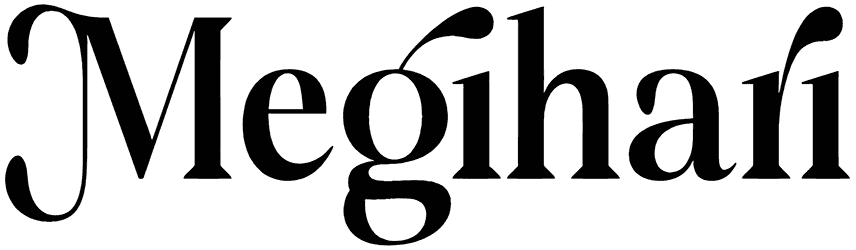
Megihari Font
Once you have a taste of the glorious touch of Megihari in your lettering, there’s no going back. There may be a lot of elegant fonts out there to get you covered in your logo designs, but there are only a few of them with adorable blooming serifs like Megihari.
If you want to make your art feel so stylish and prestigious, customize your event management business cards and restaurant logos with this classic font of RB, and you’re golden.